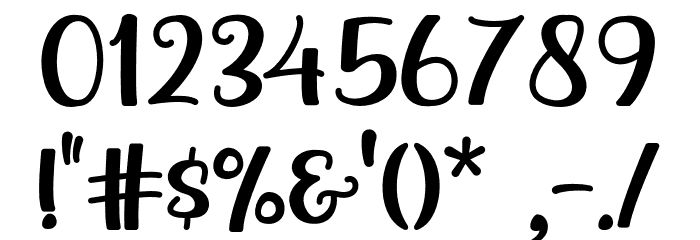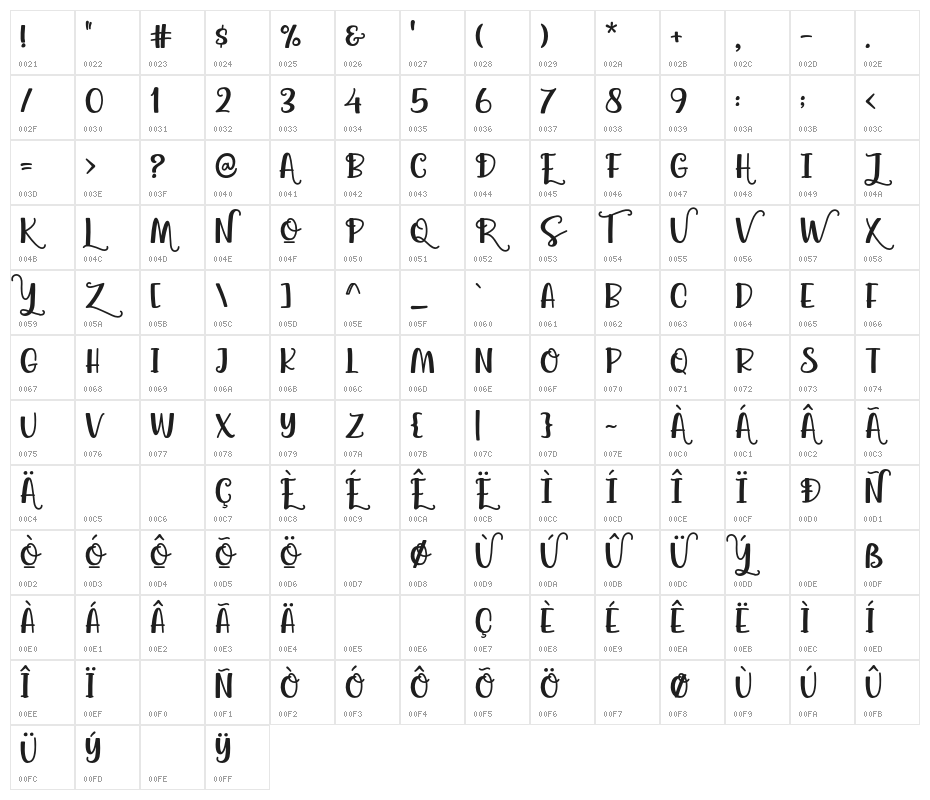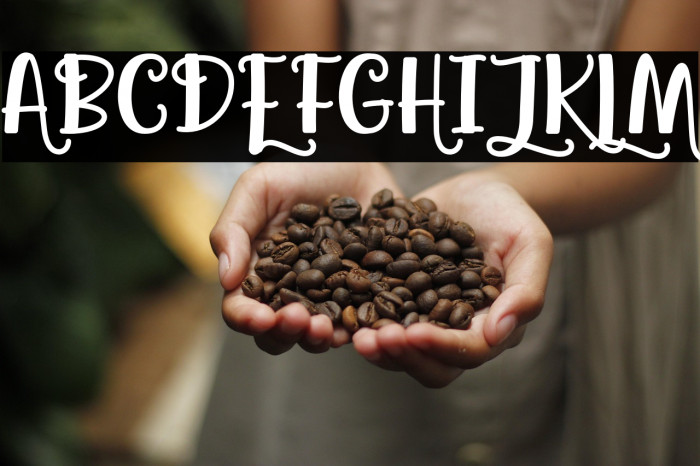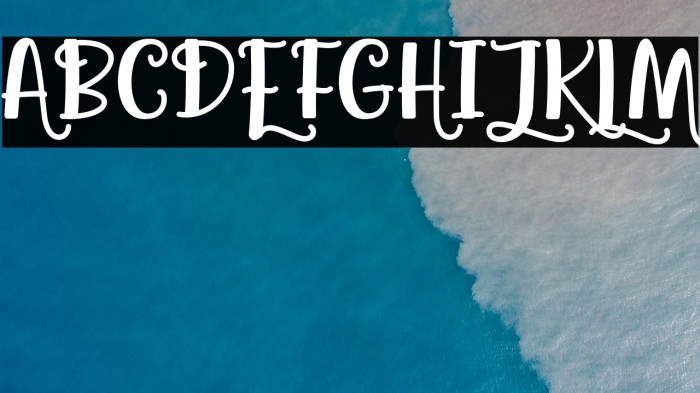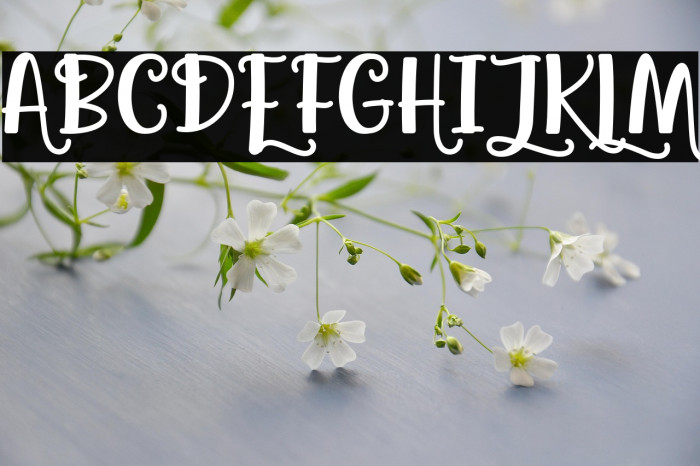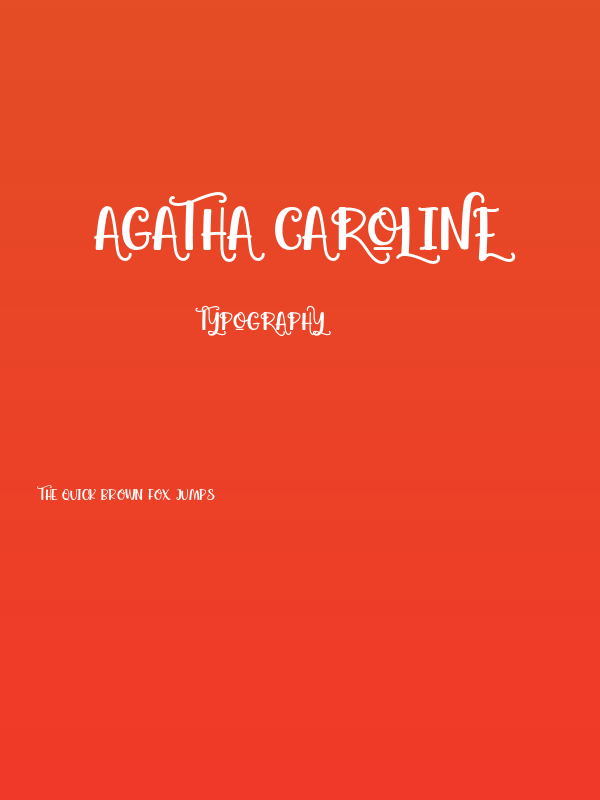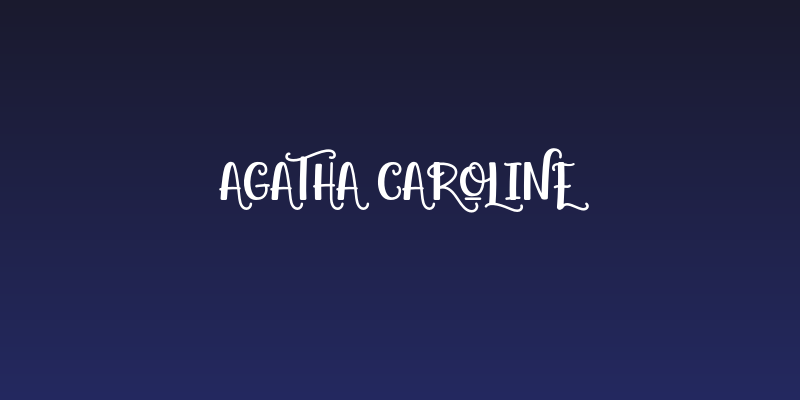
Agatha Caroline Font
Agatha Caroline Description
This font features a playful and whimsical style with a handwritten appearance. The uppercase letters are bold and expressive, with unique flourishes that add character to each letterform. The lowercase letters maintain a consistent flow, complementing the uppercase with their rounded and slightly irregular shapes. Numbers are clear and easy to read, while the special characters retain the same playful aesthetic. The overall design is casual yet artistic, making it suitable for creative projects that require a personal touch.
| Proposed Projects | Ideal for greeting cards, invitations, children's books, and creative branding projects. |